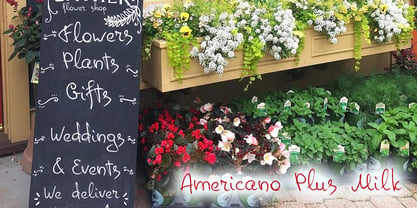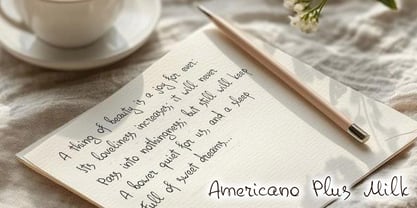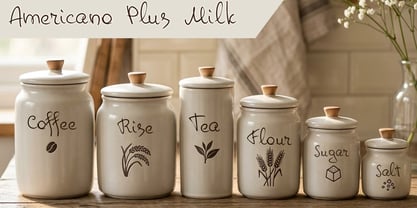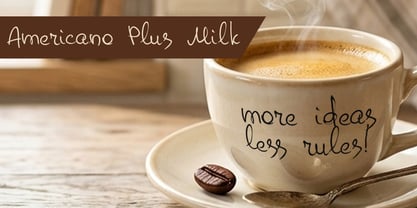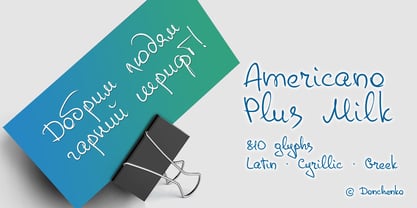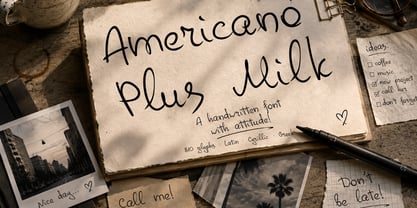
Americano Plus Milk
by Donchenko
The Americano Plus Milk Font Family was designed by Oleksandr Donchenko and published by Donchenko. Americano Plus Milk contains 1 styles. More about this family
Americano Plus Milk
Americano Plus Milk is an expressive handwritten typeface with a strong personality. It brings a sense of genuine, human emotion to every message.
Its distinctive character comes from bold flourishes, smooth oval forms, and a subtle leftward slant — reminiscent of the natural movement of left-handed handwriting.
Simple, approachable, and human, Americano Plus Milk feels equally at home in a quick handwritten note or a large-scale advertisement. Use it for menus, price tags, signs, packaging, interior details, and anything that could use a more personal touch.
The first release includes 809 glyphs, featuring Extended Latin, Cyrillic, and Greek alphabets, with support for the major character encoding systems.
Americano Plus Milk was made for cafés, little shops, menus, signs, and interiors — wherever you want to create a feeling of warmth, trust, and human connection.
Americano Plus Milk was created in Ukraine during the war, with hope for victory and a longing for peaceful life.